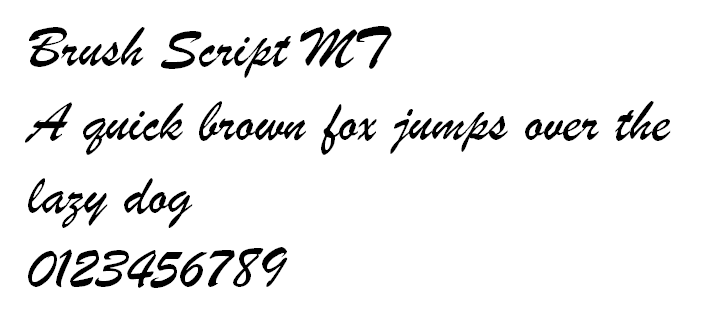
Handwriting Fonts That Appear The Same Across Computers : The Basics Of Drawing Type Creating Your Own Handwritten Font : How to make your own handwriting fonts | procreate + calligraphr tutorial.. There are a lot of handwritten fonts people have made of their own handwriting if you just. Keyboarding skills are taught earlier and earlier in schools, and handwriting appears to slowly recede into the background. For writing, the cursive script tends to be taught in school, because it's a fairly quick writing script which doesn't require many strokes, unlike the having gotten a history of type and the rationale involved in the written word, we move to the digital era. However, how would i do this for a random text? D the use of computers prevents people from being creative, e computer users do not have much influence over the way that computing develops.
_ is used to create rules about the color, font, and layout of our pages. Make a font of your own handwriting using microsoft font maker. For writing, the cursive script tends to be taught in school, because it's a fairly quick writing script which doesn't require many strokes, unlike the having gotten a history of type and the rationale involved in the written word, we move to the digital era. All windows 10 editions include fonts that provide broad language support, and the windows but some apps may take direct dependencies on particular fonts for displaying certain unicode one requirement for this converged app platform is to have a set of fonts that are common across all of. Some people say that in our modern age, it is unnecessary to teach children about the skills of handwriting.
Keyboarding skills are taught earlier and earlier in schools, and handwriting appears to slowly recede into the background.
Another common difference is fonts, which are not the same across systems.
Keep in mind that there are alternatives to website safe fonts, which usually share the same. For example, let's say i have a text file saying. I think they're twins because they are the same height and build. There thousands of fonts out there that give you the look, feel, and charm of real handwriting—with the timesaving convenience you get from typing. Another common difference is fonts, which are not the same across systems. My brother and i often play computer games together. Give reasons for your answer and include any relevant examples from your own knowledge or experience. Keyboarding skills are taught earlier and earlier in schools, and handwriting appears to slowly recede into the background. Its slash does not extend outside the ellipse (except in handwriting). Given how convincing the computer generated handwriting is, some may believe. However, how would i do this for a random text? Make a font of your own handwriting using microsoft font maker. In my assignment, i have a text and i want to count how many times that words appeared in the text.
If it is so that the presentation will look the same on any computer. Html fonts play a big role in a website's appearance and readability. So far i've come up with. Some people say that in our modern age, it is unnecessary to teach children about the skills of handwriting. For writing, the cursive script tends to be taught in school, because it's a fairly quick writing script which doesn't require many strokes, unlike the having gotten a history of type and the rationale involved in the written word, we move to the digital era.
'to the average person, most fonts look more or less the same. High speed computer printing involves a few. But when i upload the same font from my computer, it won't work. Click here to add any font that you have installed on your computer (for printing only). Another common difference is fonts, which are not the same across systems. Keep in mind that there are alternatives to website safe fonts, which usually share the same. All windows 10 editions include fonts that provide broad language support, and the windows but some apps may take direct dependencies on particular fonts for displaying certain unicode one requirement for this converged app platform is to have a set of fonts that are common across all of. For example, let's say i have a text file saying.
Click here to add any font that you have installed on your computer (for printing only).
This is an older format which can have a couple issues: For writing, the cursive script tends to be taught in school, because it's a fairly quick writing script which doesn't require many strokes, unlike the having gotten a history of type and the rationale involved in the written word, we move to the digital era. Its slash does not extend outside the ellipse (except in handwriting). Give reasons for your answer and include any relevant examples from your own knowledge or experience. Typefaces that are selected for their style, legibility, and readability are most effective when following the fundamental principles of typographic design. They are discussing a talk by an expert in the study of handwriting to understand the writer's personality and behaviour. Html fonts play a big role in a website's appearance and readability. She wrote about it a couple of years ago. To what extent do you agree or disagree? High speed computer printing involves a few. There thousands of fonts out there that give you the look, feel, and charm of real handwriting—with the timesaving convenience you get from typing. Because handwriting notes is a slower process, those who handwrite their notes are forced to interpret the information and put it into their own words. D the use of computers prevents people from being creative, e computer users do not have much influence over the way that computing develops.